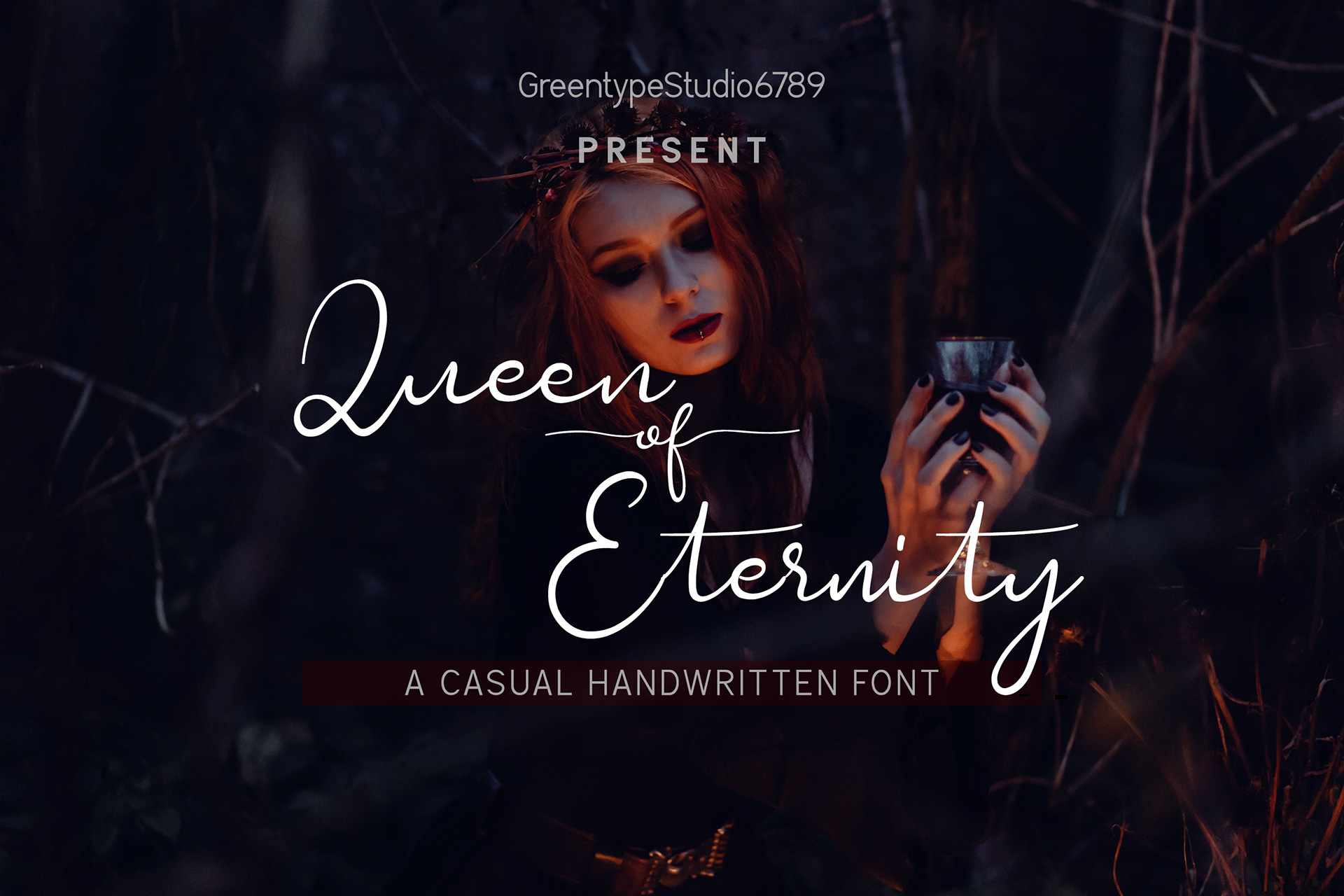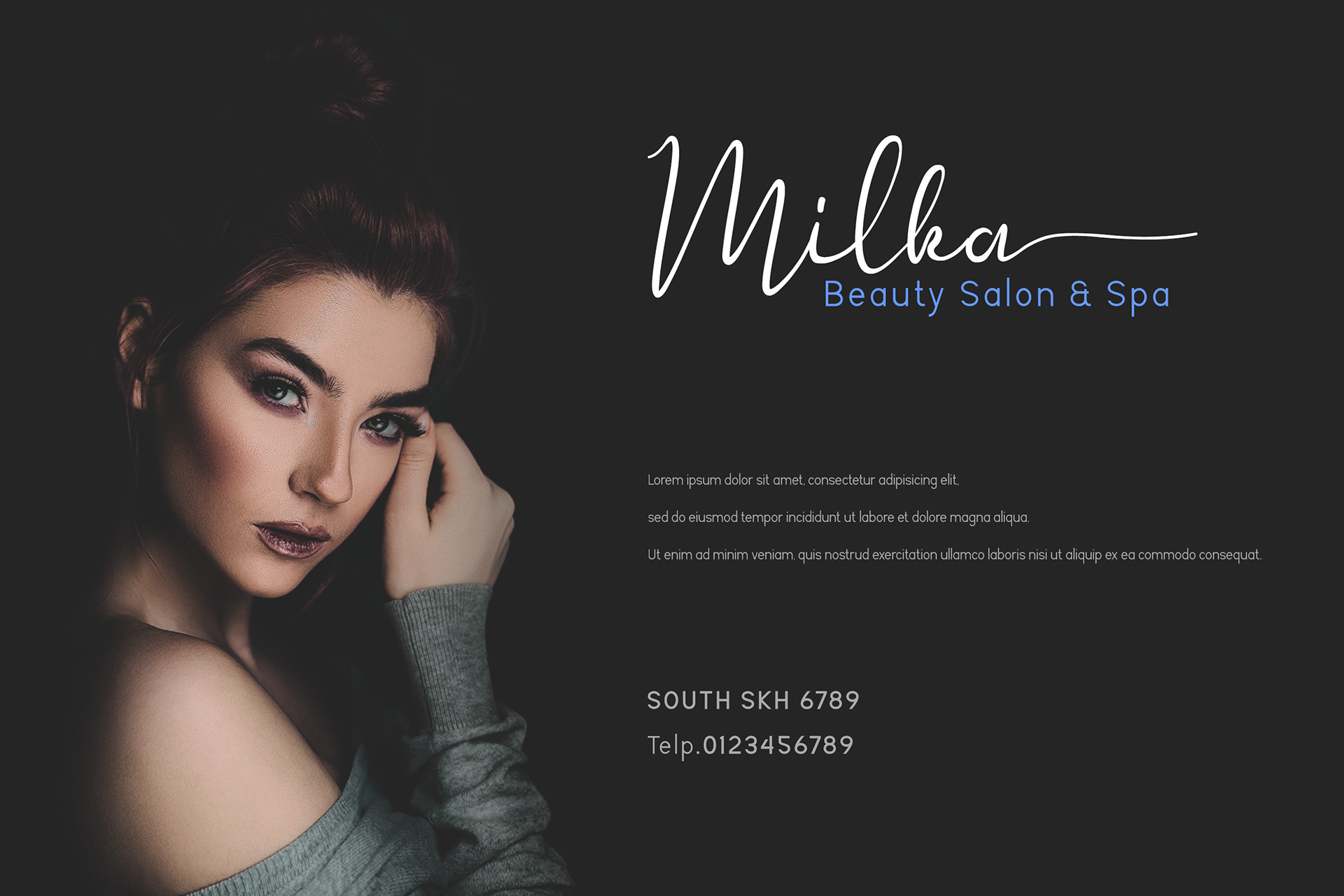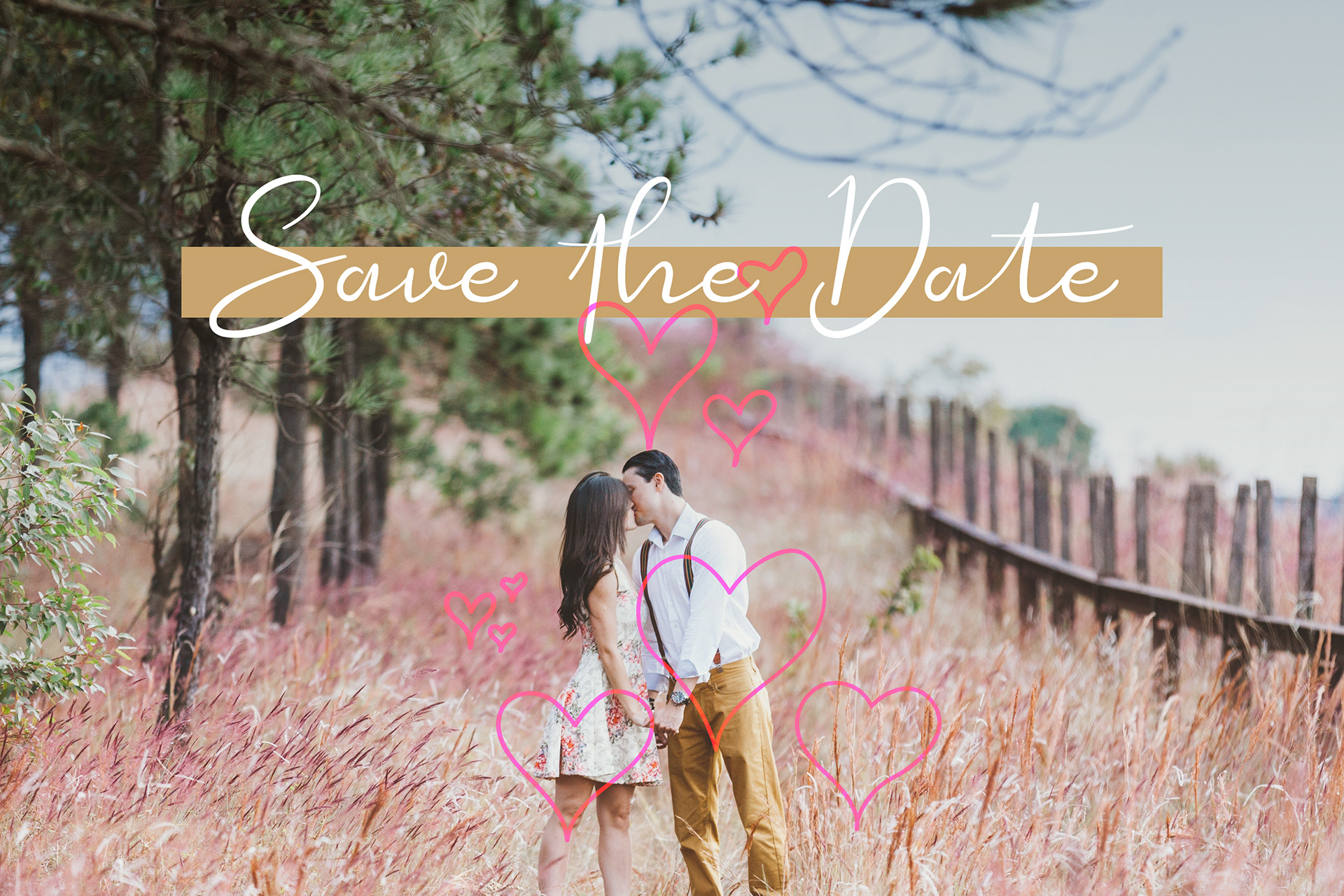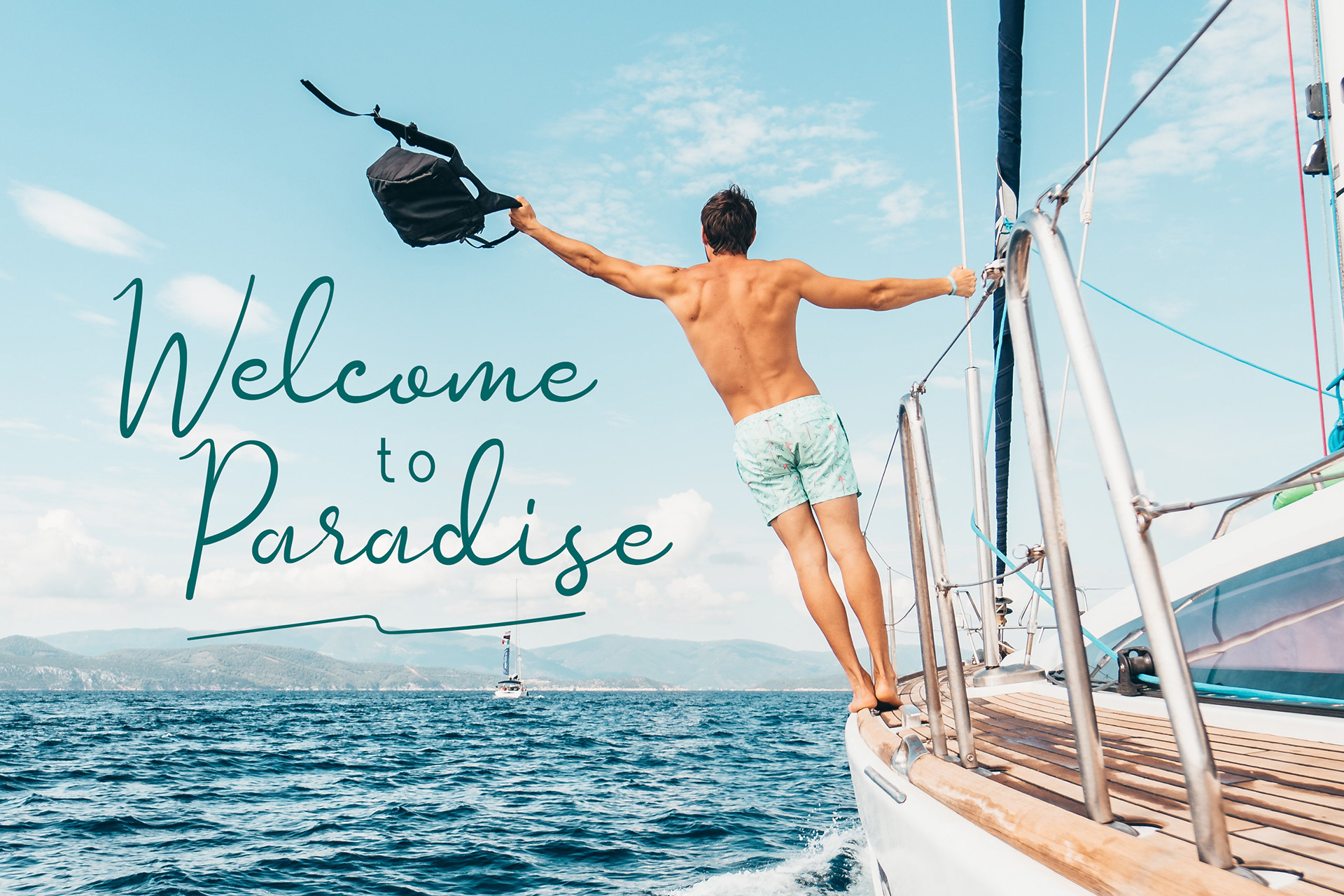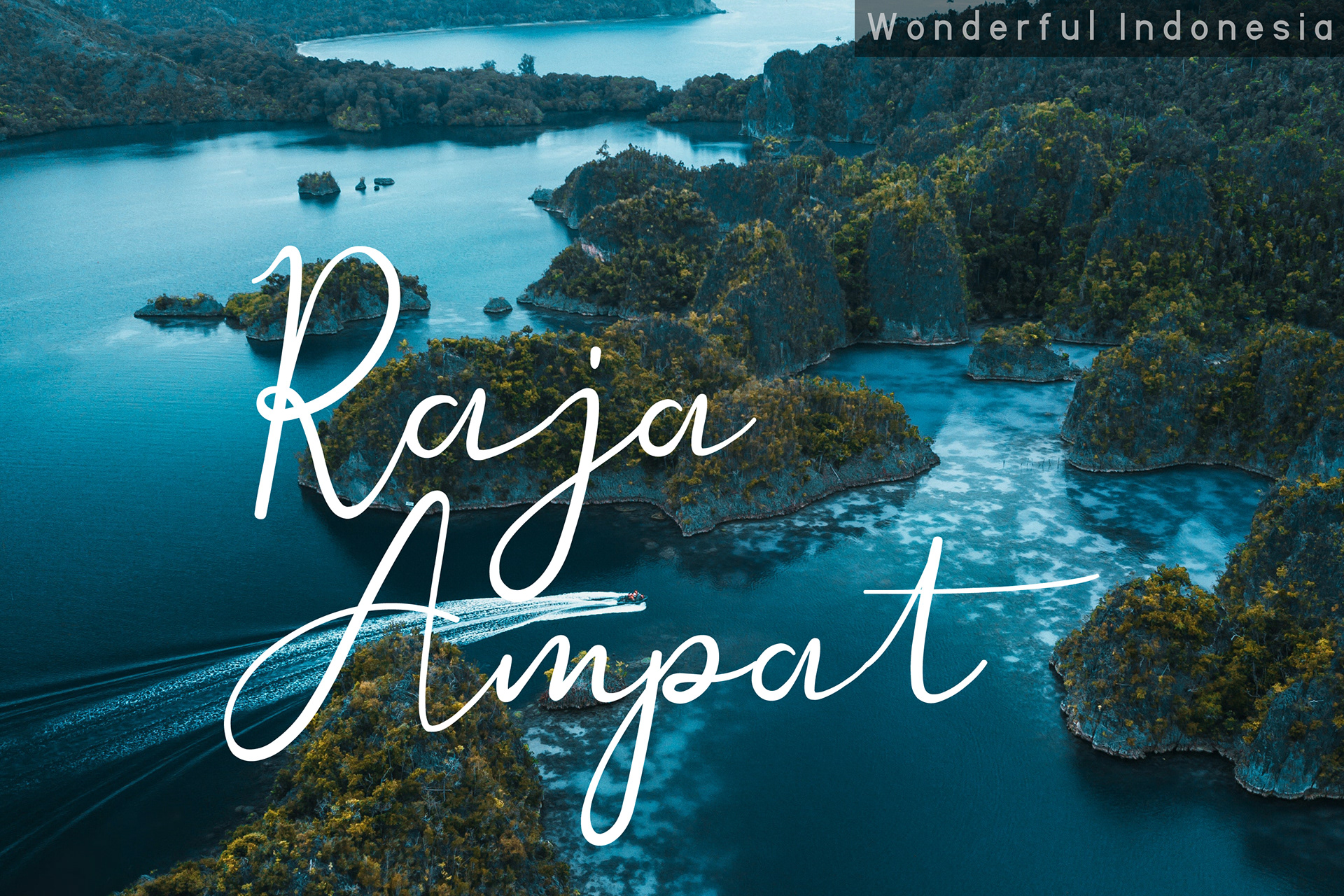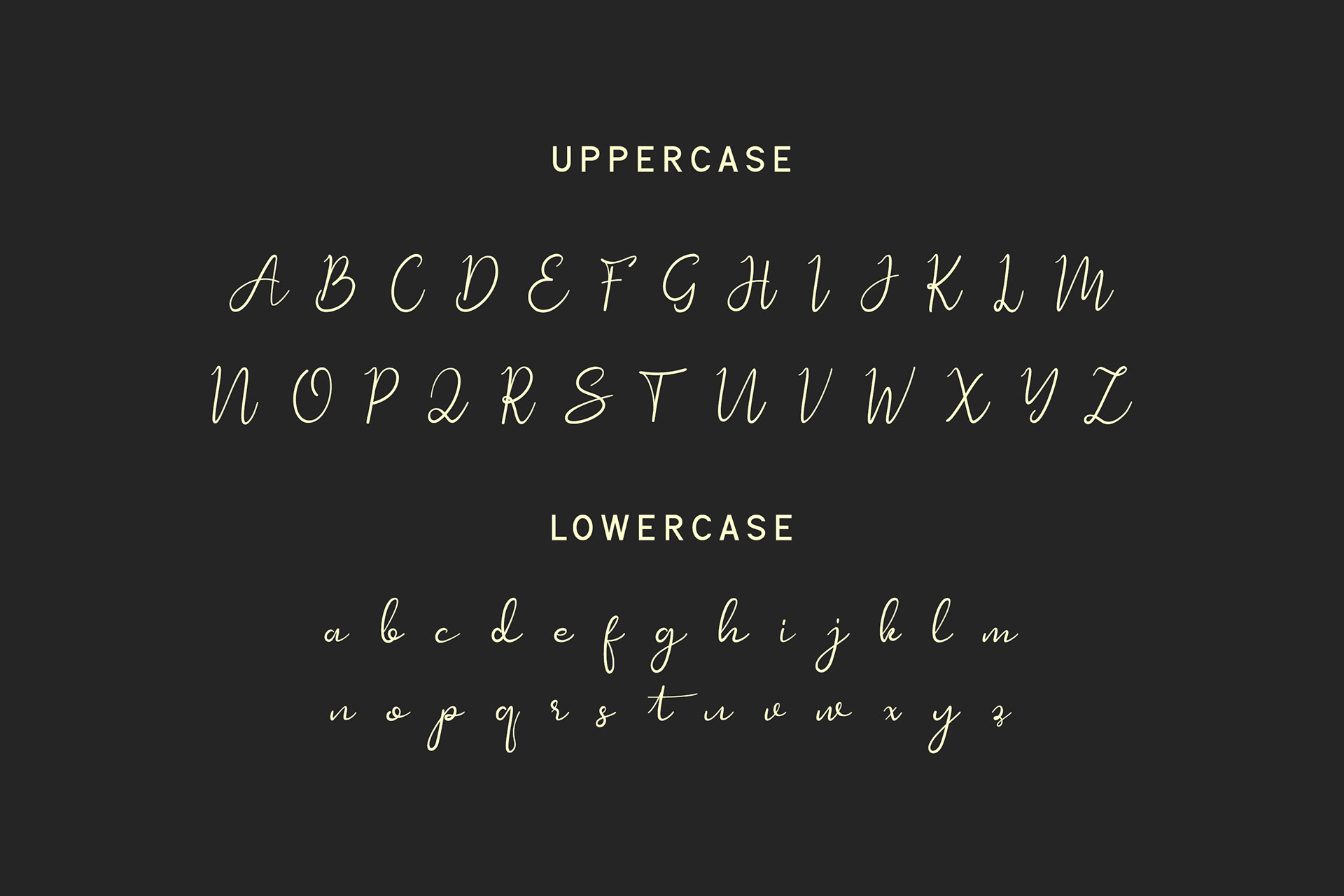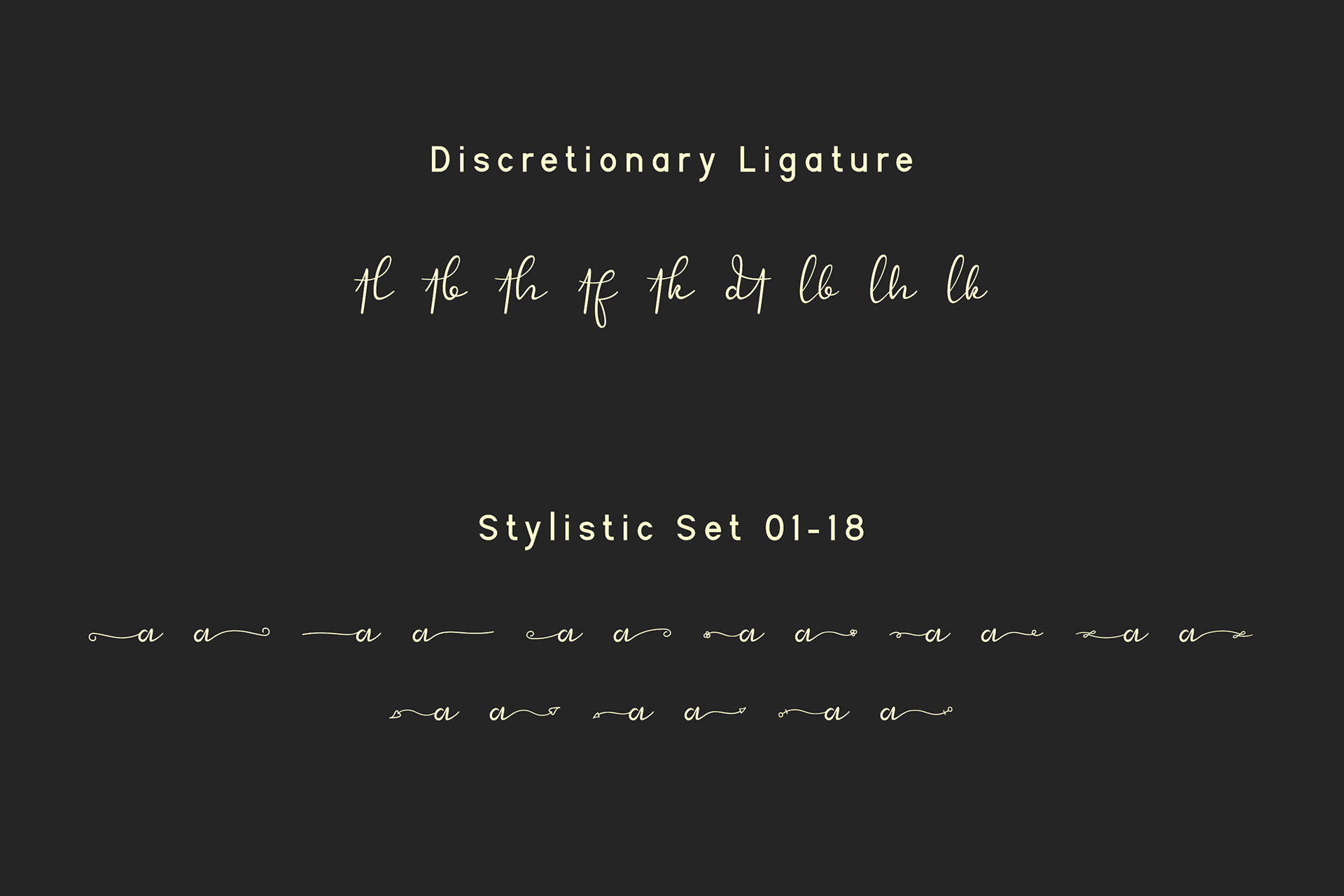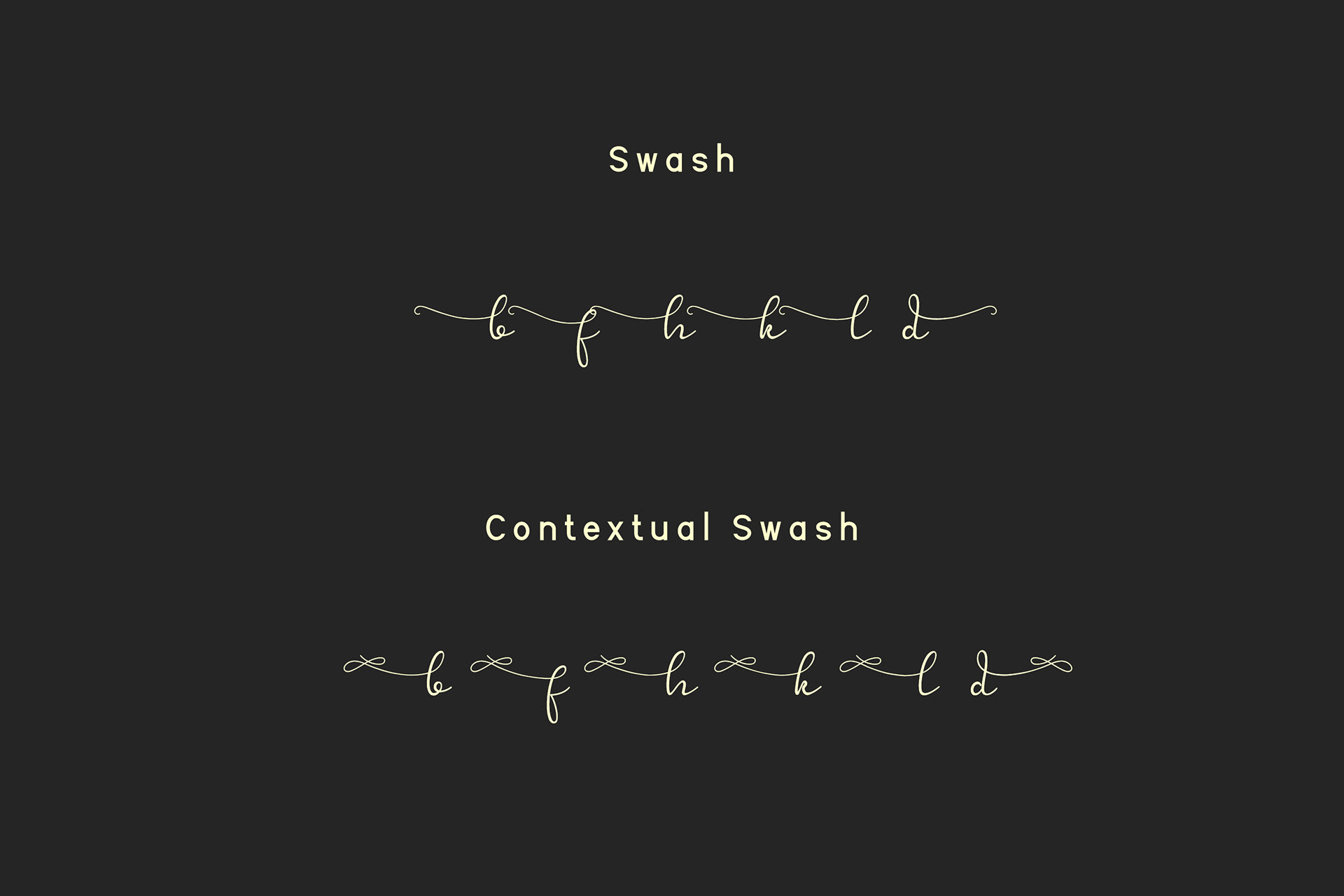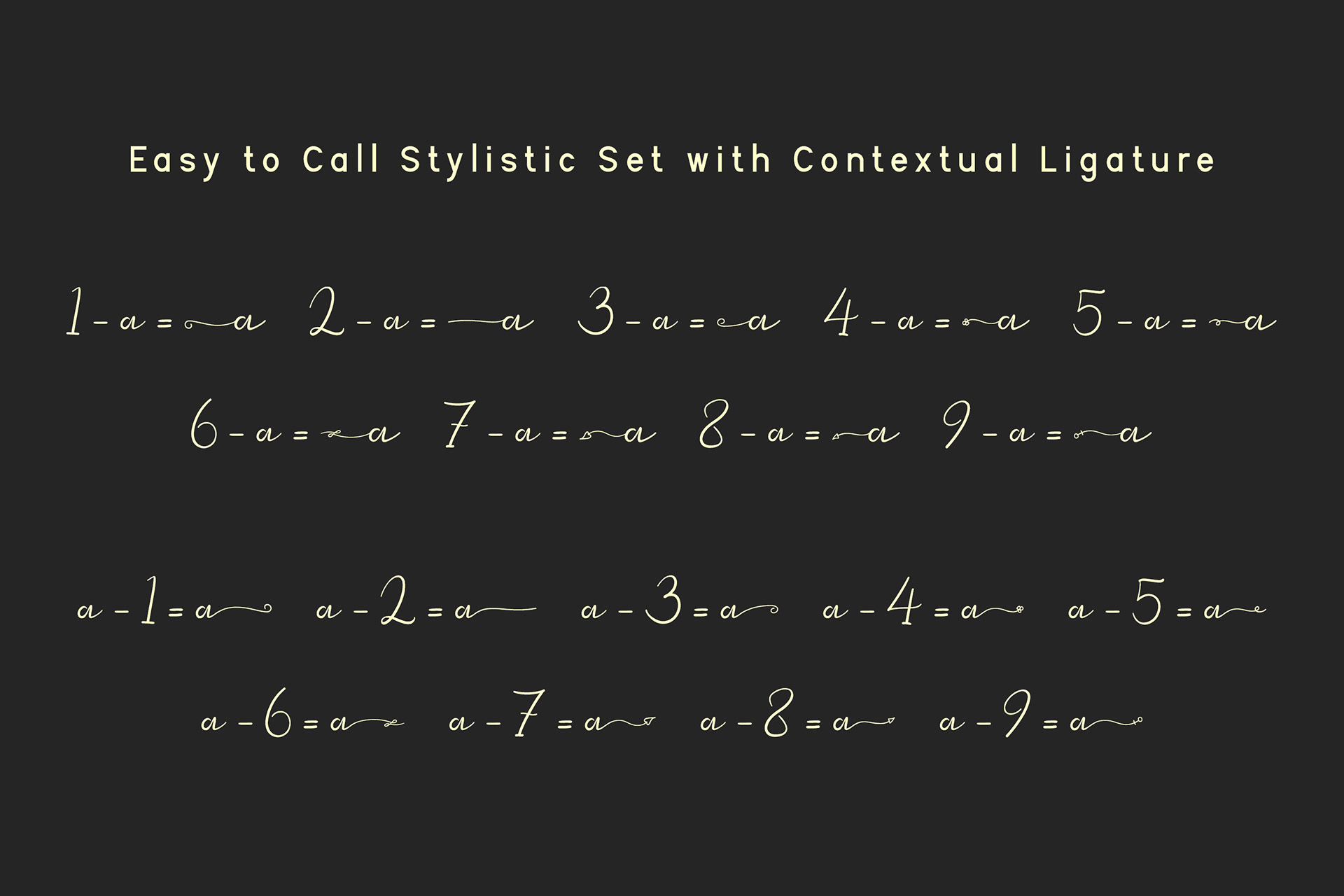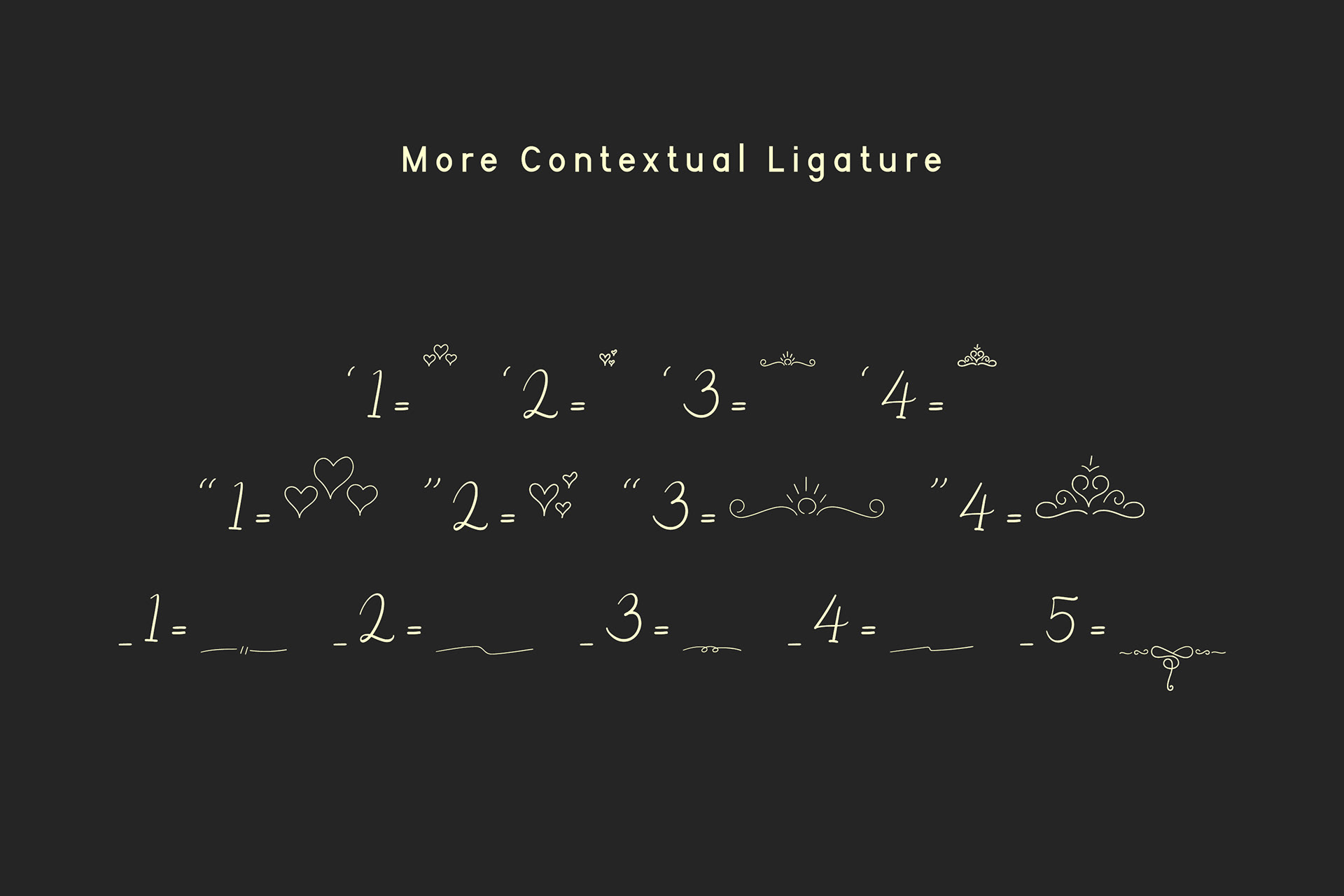
Queen of Eternity is a casual handwritten font, featuring a joyful flow. This original look will appeal to a wide range of crafty ideas, from letterheads and titles, to stationery.
Queen of Eternity is perfect for various design needs such as Logo types, invitations, signatures, watermark photography, album covers, and various design needs both formal and non-formal.